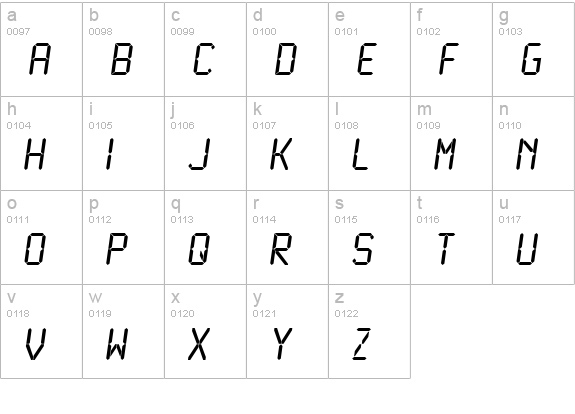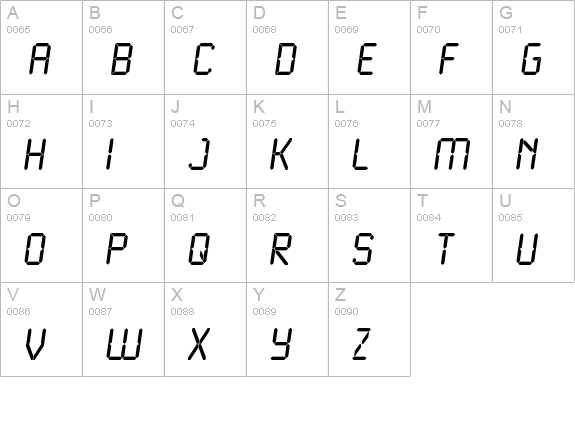
LCD Normal Font Details
LCD Normal is the standard, neutral variant in the LCD typeface family \xE2\x80\x94 well suited to general body text, paragraphs, and standard typographic work.
The LCD Normal font is a sleek and stylish typeface that adds a touch of modernity to any design project. With its clean lines and bold appearance, this font is perfect for creating eye-catching headlines, logos, and signage. What sets the LCD Normal font apart is its versatility. Whether you're designing for a tech company, a sports team, or a gaming website, this font can adapt to any theme or concept. Its sharp edges and distinct letterforms make it highly legible, even from a distance. One of the best things about the LCD Normal font is that it is freely available to download at FontsMarket.com. This means that you can use it in your personal or commercial projects without any restrictions. With just a few clicks, you can add this striking font to your collection and elevate your design work to new heights. Whether you're looking to create a futuristic logo, a dynamic website header, or attention-grabbing advertisements, the LCD Normal font is the perfect choice. Its modern and bold design will make your text stand out and leave a lasting impression on your audience. Don't miss out on the opportunity to enhance your designs with the LCD Normal font. Visit FontsMarket.com today and download this amazing font for free.